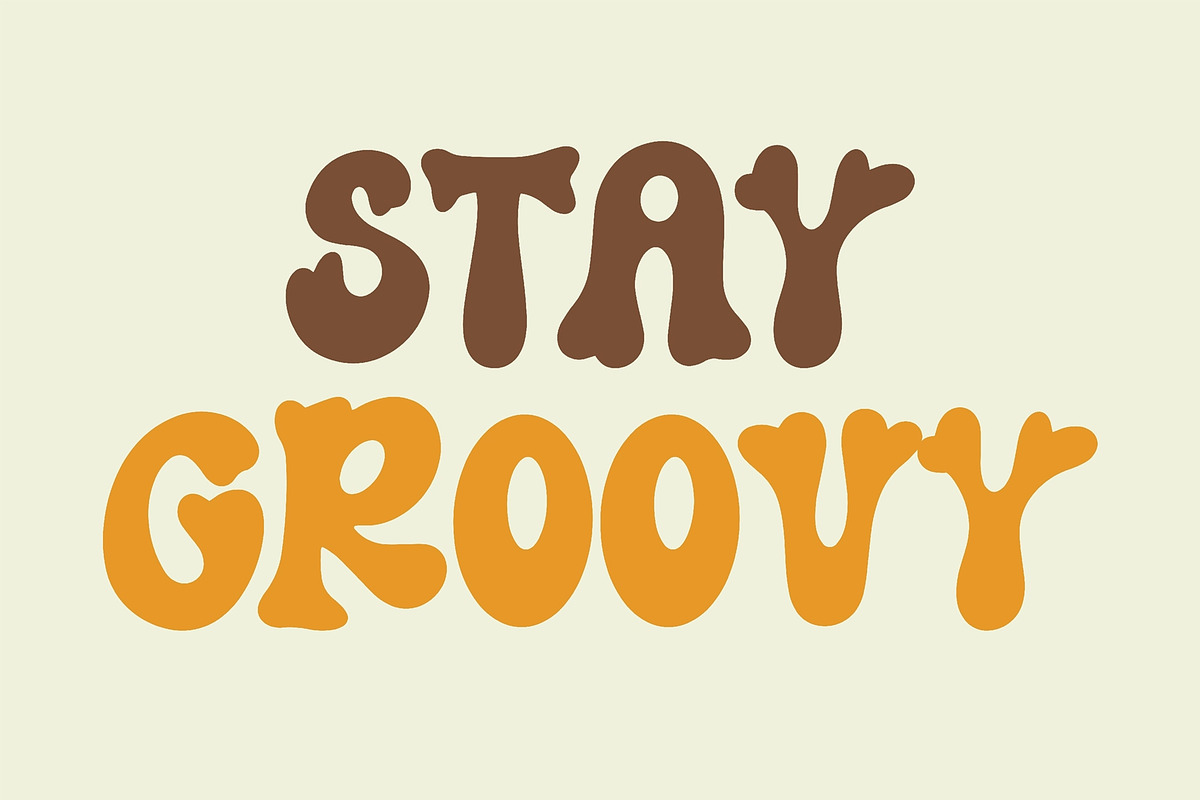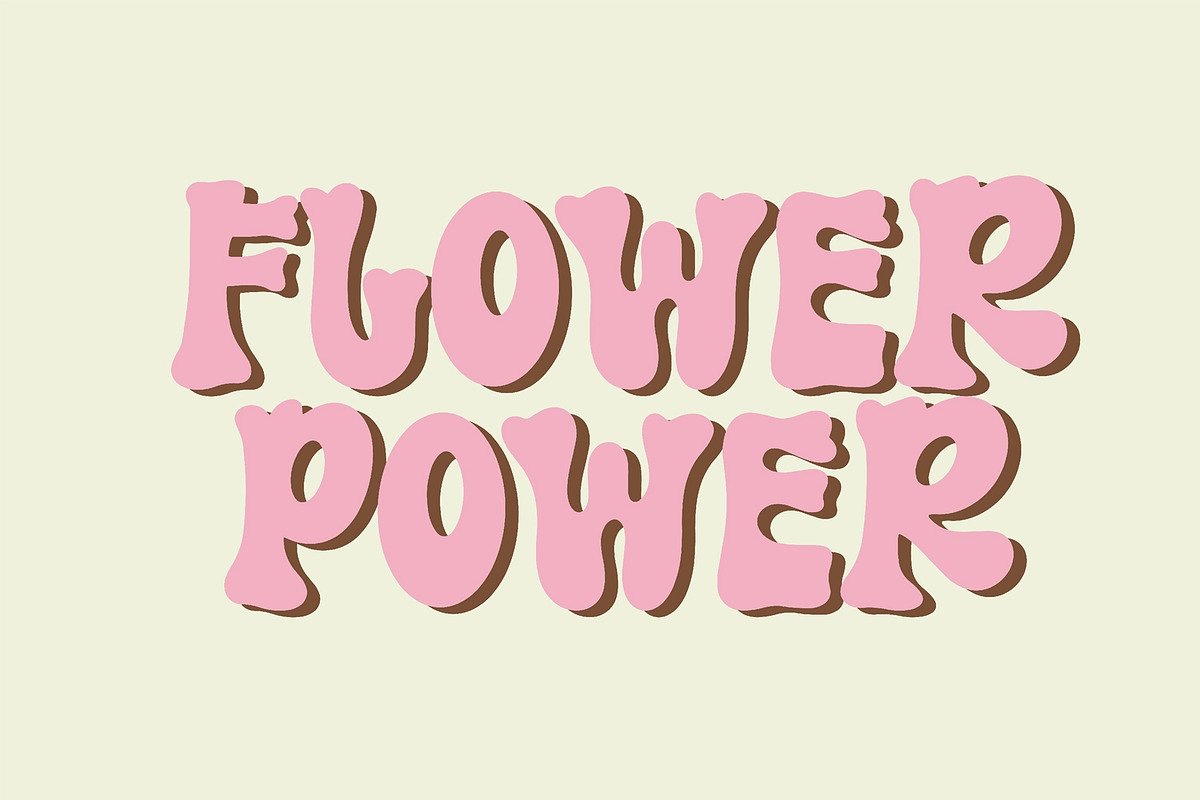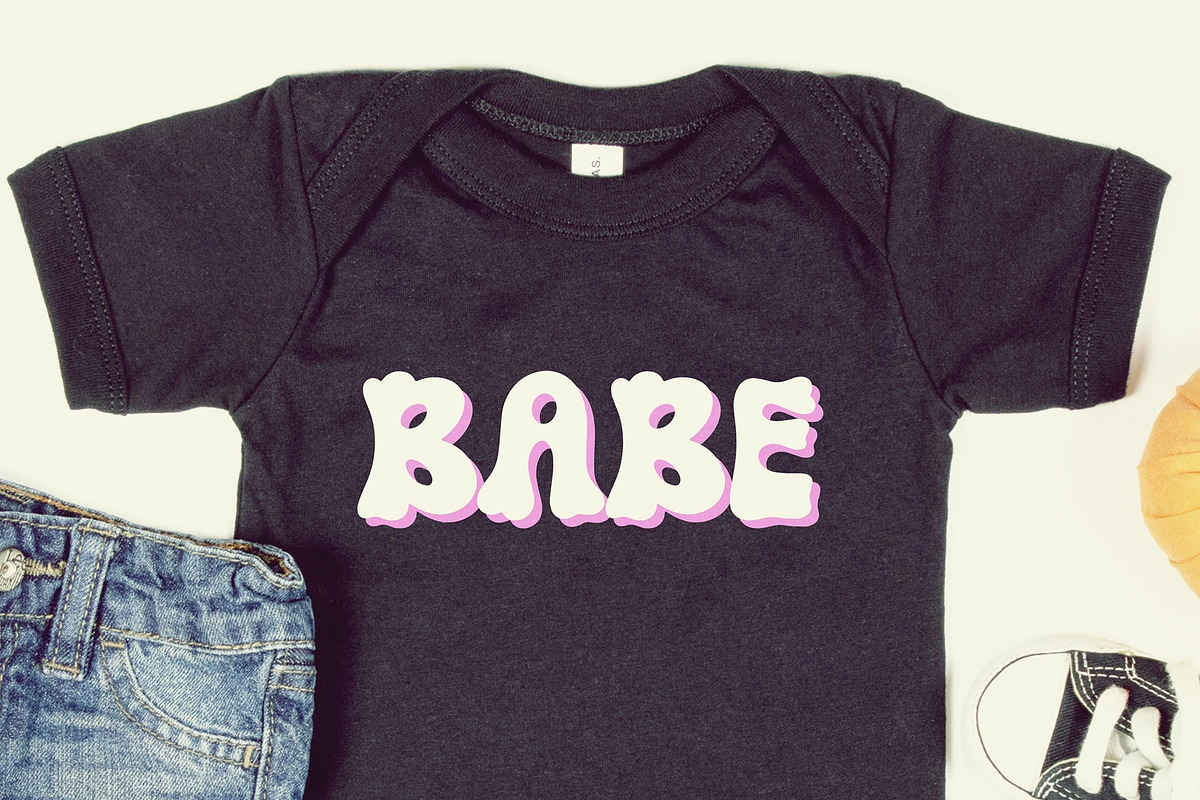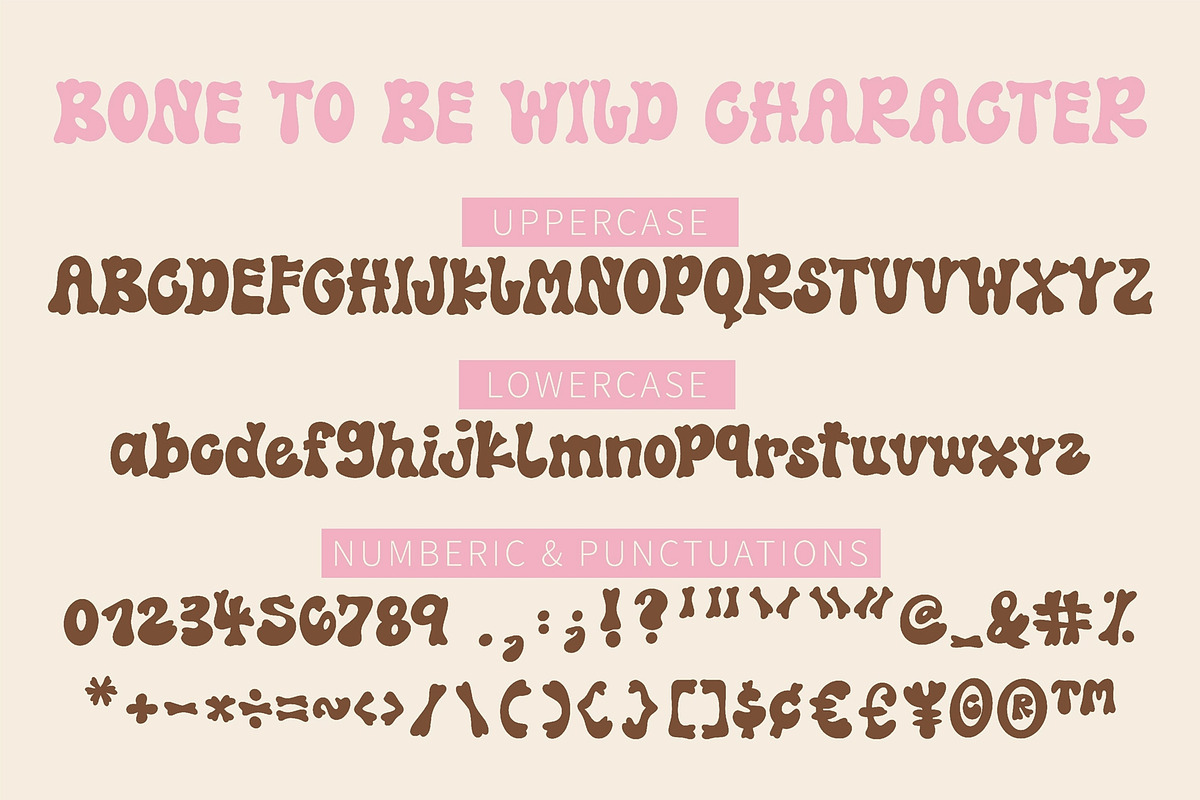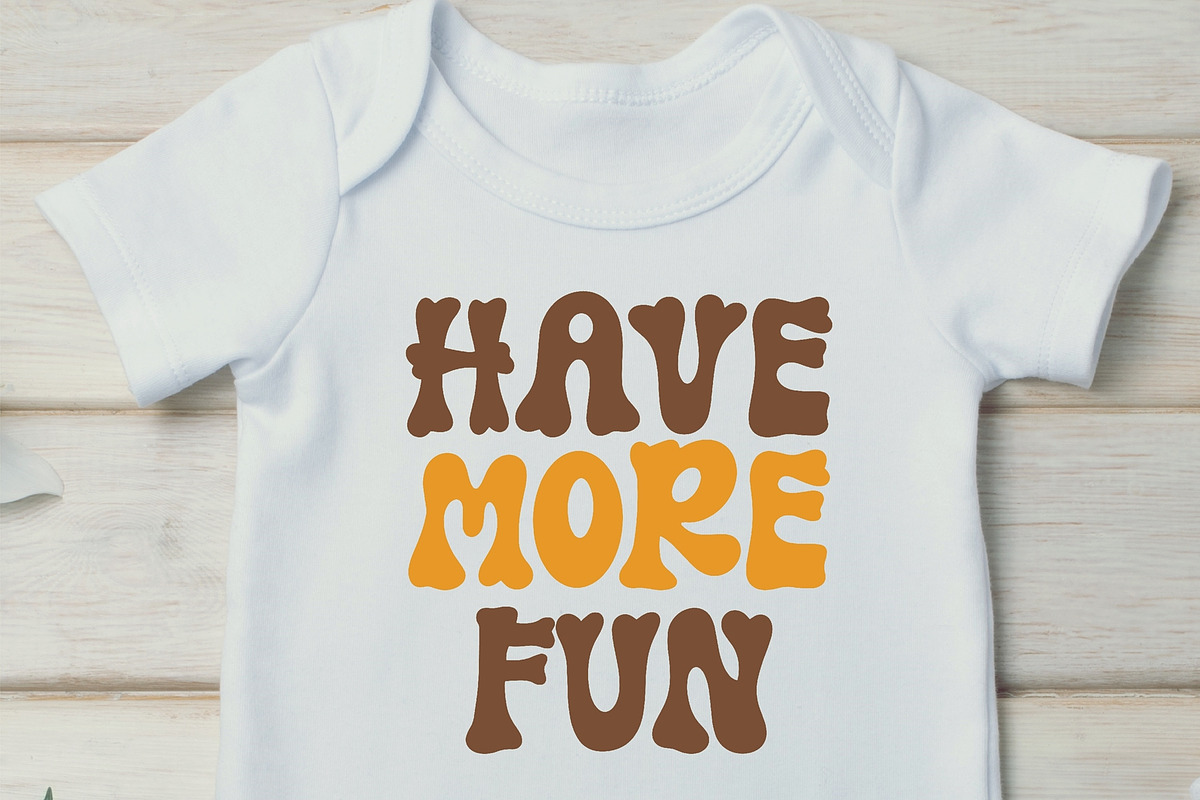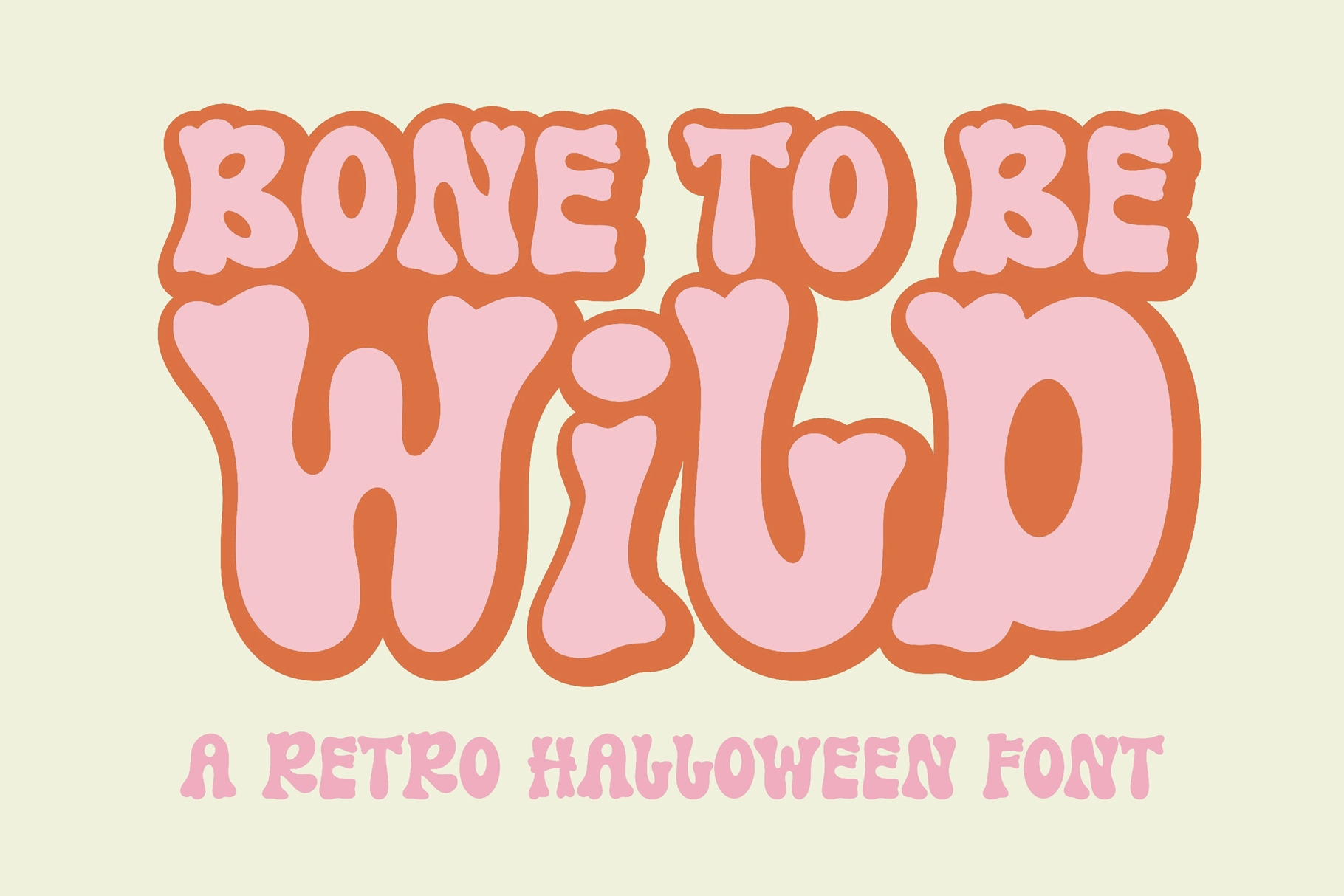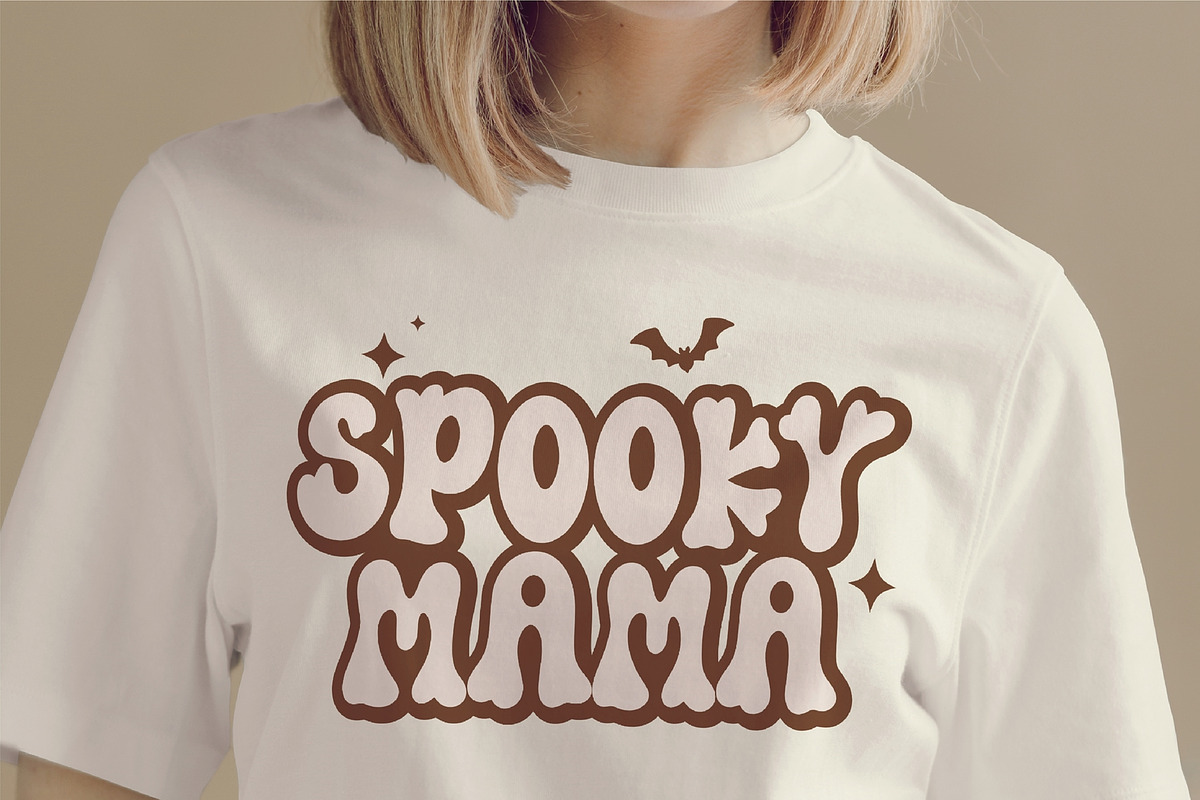
Bone to be wild-Retro halloween font
Bone to be wild is a spooky and fun Halloween display font. It is perfect for any October project that requires a dramatic touch!